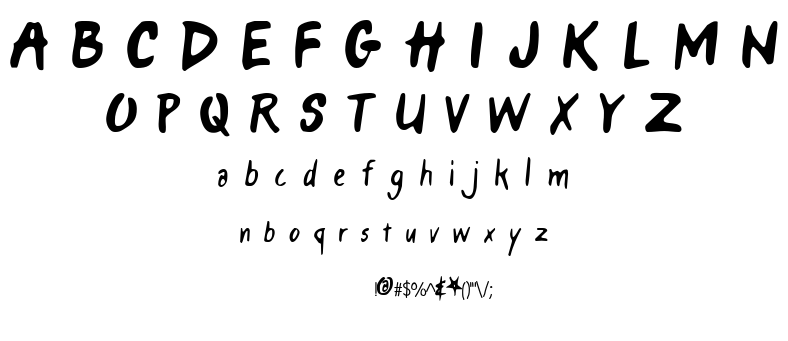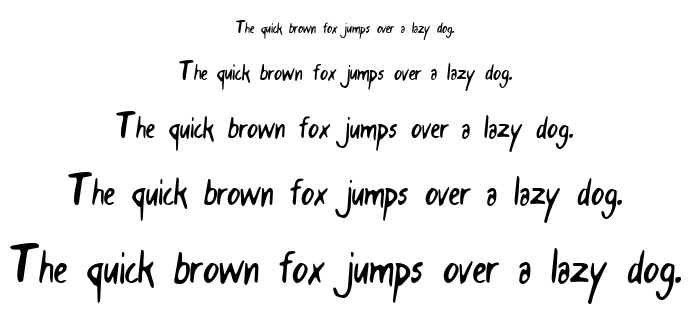
Only Fools & Horses font.
Created to pay homage to the excellent BBC series ONLY FOOLS and HORSES….. font based on the 1982 title sequence with the peeling labels. Need I say any more !